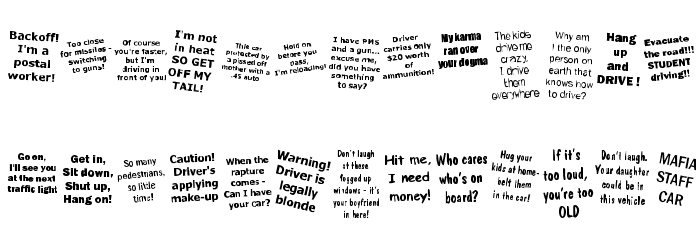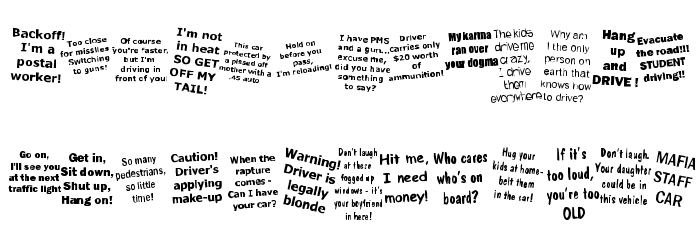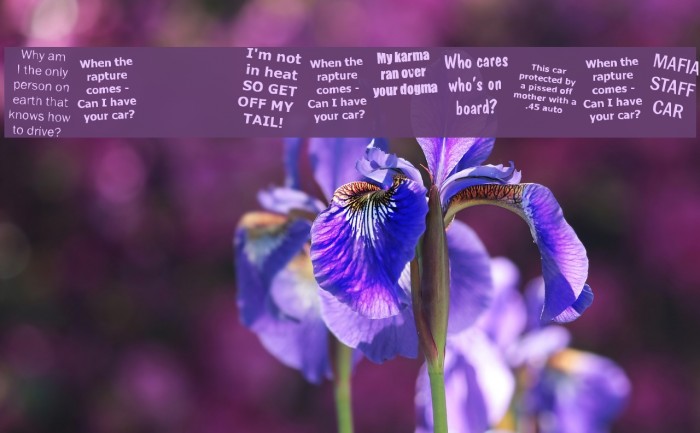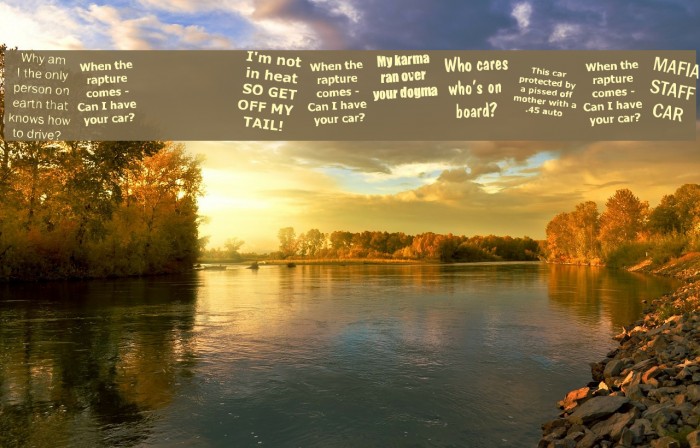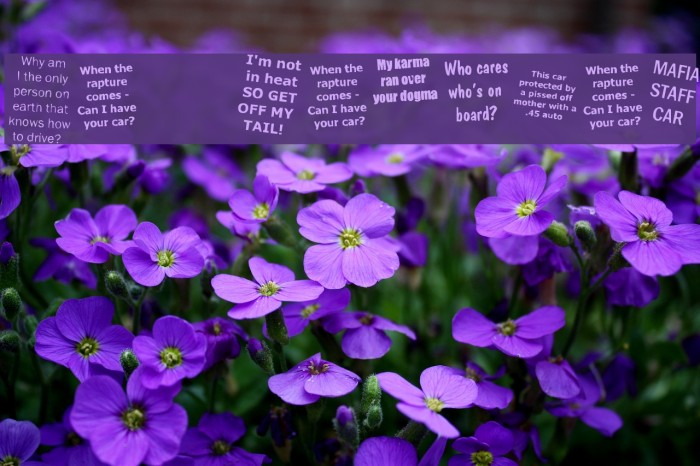
KR Driverz Font
This font is a playful and dynamic display typeface that features a variety of quirky and humorous phrases. The letters are bold and have a hand-drawn, comic-like appearance, with uneven baselines and varying sizes that add to its whimsical charm. The font includes uppercase and lowercase letters, numbers, and a selection of special characters. Its irregular and spontaneous style makes it ideal for projects that require a fun and informal touch. The font's unique personality is perfect for creative designs that aim to capture attention and convey a sense of humor.
A playful, comic-style display font with a hand-drawn appearance.
- Proposed Projects: Ideal for comic books, humorous posters, children's book covers, and playful branding.
- Overall Style: Playful, Whimsical
- Use Case: Headlines, Posters, Branding